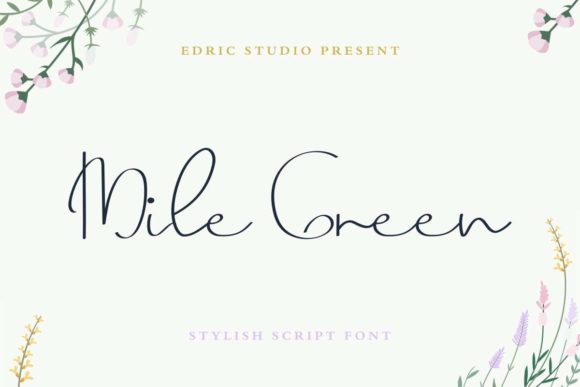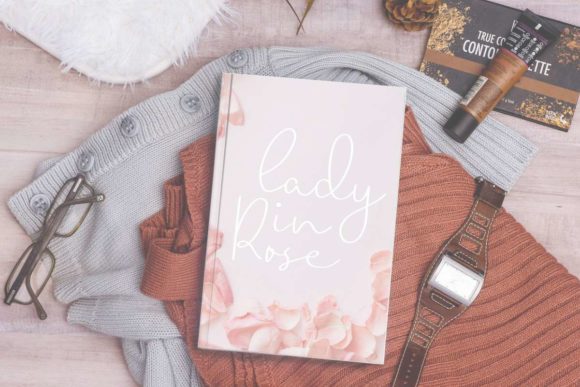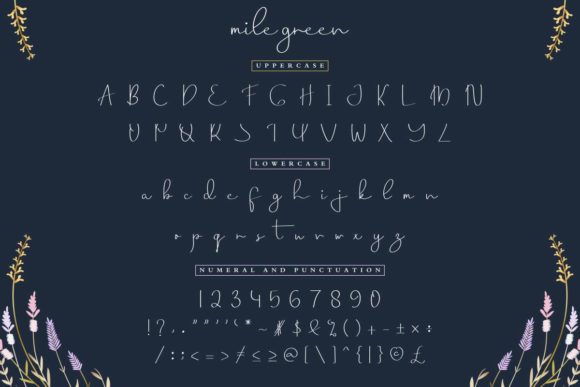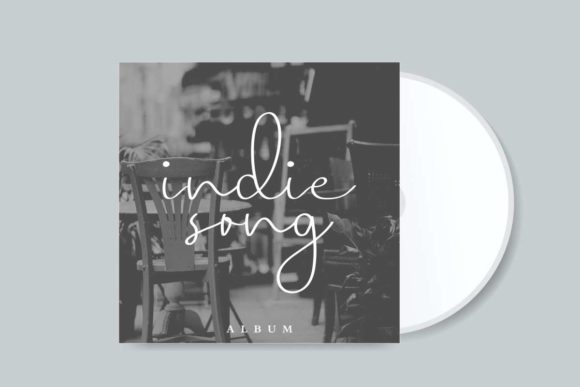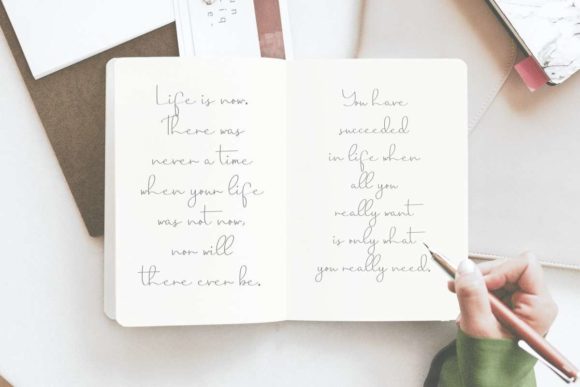
Introduction to Mile Green Font
Have you ever found yourself in the midst of a creative project, staring at a blank page or a dull design, desperately searching for that one element that will bring it all together? For designers, this moment is all too familiar. It’s the moment when a high-quality font can make all the difference between a mediocre design and a truly exceptional one.
That’s where the Mile Green Font comes in – a delicate, elegant, and flowing handwritten font that is sure to breathe life into your most creative ideas. With its beautiful and well-balanced characters, this design resource is perfect for a wide range of projects, from simple text overlays on a transparent background to complex, multi-layered designs.
Key Features of Mile Green Font
- High-quality, professional font suitable for creative projects and design resources.
- Features a transparent background, making it ideal for use on any design or digital background.
- Includes a range of stylish and modern characters, perfect for adding a touch of elegance to any design.
- Perfect for designers and artists looking for a unique and high-quality design resource.
- Suitable for use in a variety of creative projects, including digital art, graphic design, and more.
Honest Review: Mile Green Font
I recently had the chance to work with the Mile Green Font, and I’m excited to share my thoughts on this design resource. As a designer, I’m always on the lookout for high-quality fonts that can elevate my creative projects. Mile Green Font definitely delivers.
- ✨ Unique and modern design that adds a touch of elegance to any project.
- ✨ High-quality vector format makes it easy to scale and use in a variety of contexts.
- ✨ Transparent background option is a game-changer for designers who need to create custom backgrounds or overlays.
- ⚠️ Limited character set, which may not be ideal for projects that require a wide range of characters.
- ⚠️ Not suitable for use in small text sizes, as it can become difficult to read.
Overall, I’m impressed with the Mile Green Font. While it may not be perfect, its unique design and high-quality vector format make it an excellent choice for designers looking to add a touch of sophistication to their creative projects. With a little planning and creativity, I’m confident that Mile Green Font can be a valuable addition to any design toolkit.
Mile Green Font
The Mile Green Font is a versatile and high-quality design resource perfect for creative projects. With a transparent background, this font is ideal for adding a touch of elegance to your designs.
The Mile Green Font is perfect for:
- Business cards and marketing materials.
- Website headers and footers.
Tips for Getting the Most Out of the Mile Green Font
For the best results, use the Mile Green Font in combination with a high-quality image or background. Experiment with different font sizes and styles to find the perfect look for your design.